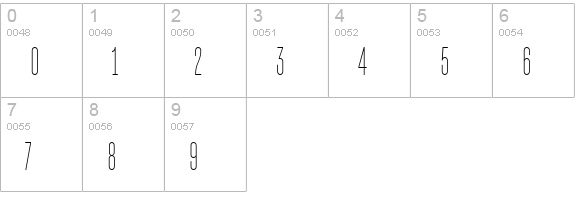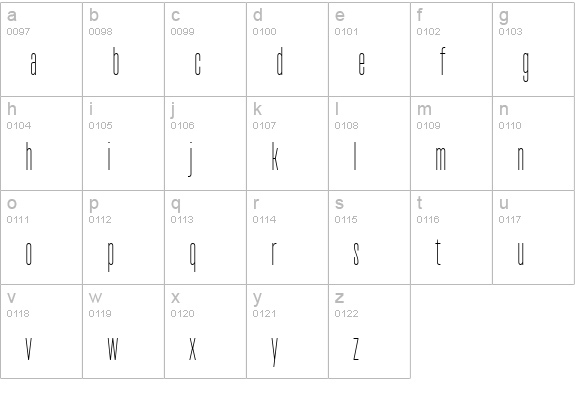
TT Bluescreens Light Font Details
TT Bluescreens Light is a refined, elegant variant in the TT typeface family \xE2\x80\x94 well suited to elegant body text, refined sub-headings, and luxury branding.
Introducing TT Bluescreens Light font, a sleek and modern typeface designed to bring a touch of elegance to your projects. This versatile font features clean lines and a contemporary aesthetic, making it perfect for a wide range of design applications. Whether you're working on branding, advertising, or editorial projects, TT Bluescreens Light font is sure to make a bold statement. What's even better is that this stunning font is available for free download at FontsMarket.com. Yes, you read that right - you can add TT Bluescreens Light to your font collection at no cost, allowing you to elevate your designs without breaking the bank. Don't miss out on this fantastic opportunity to enhance your creative work with a premium font that won't cost you a dime. Download TT Bluescreens Light font today and take your design projects to the next level!